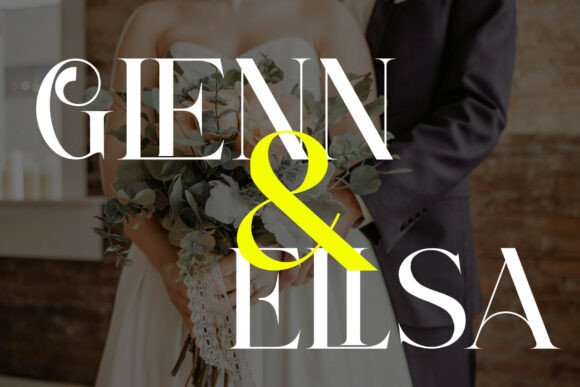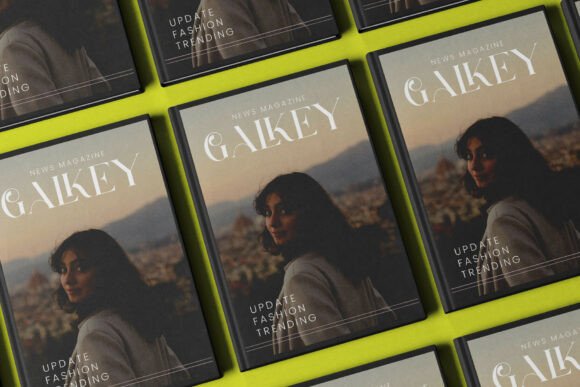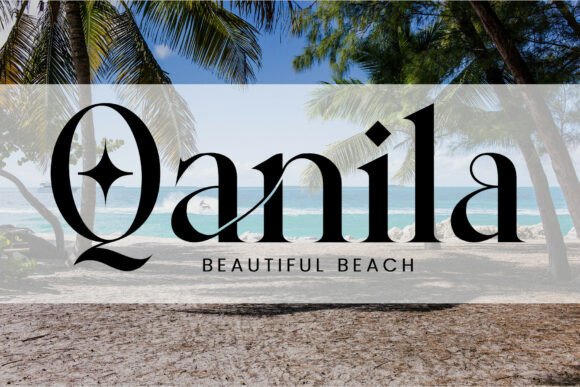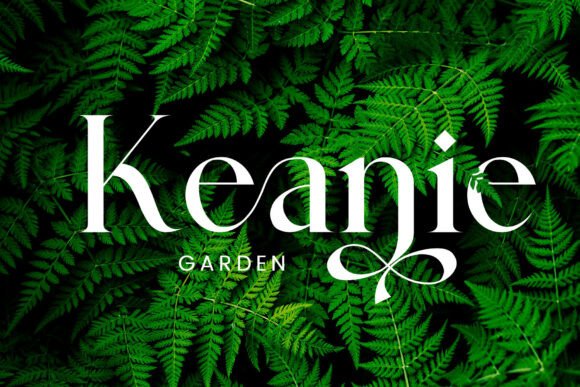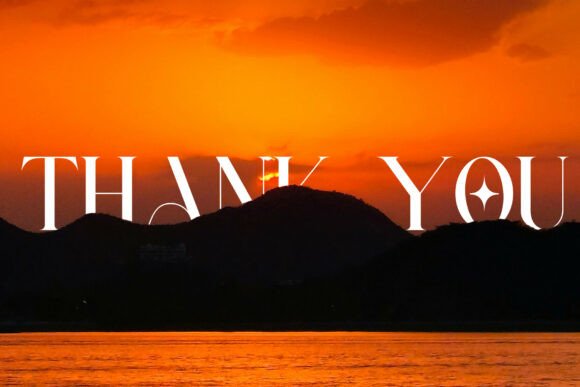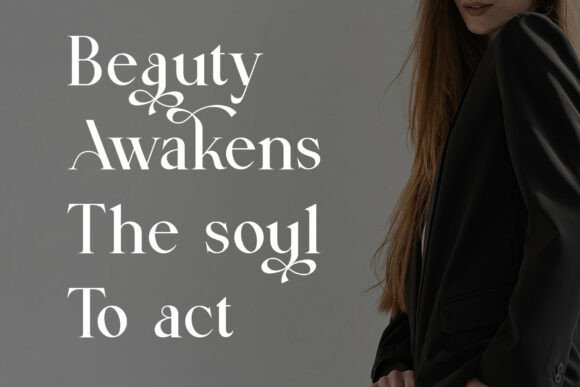
Elevate Your Design Aesthetic with the Dilea Font: A Masterpiece of Contemporary Luxury
In the world of high-end design, typography plays a crucial role in conveying sophistication, elegance, and exclusivity. For designers seeking to elevate their aesthetic to the pinnacle of refinement, the Dilea font is an unparalleled choice. This exquisite typeface is meticulously crafted to embody the essence of contemporary high-fashion and luxury editorial design, making it an indispensable asset for those working within the realms of luxury branding, jewelry, and high-end lifestyle products.
The Architecture of Elegance: A Closer Look at Dilea’s Design
The Dilea font is distinguished by its striking contrast, characterized by razor-thin hairlines that fluidly transition into bold, structural stems. This masterful balance of delicate and robust elements pays homage to the timeless elegance of Italian fashion houses, exuding an aura of authority and refined grace. Every character in the Dilea typeface is precision-balanced to ensure that whether it’s utilized for a single-letter monogram or a full-page headline, it consistently conveys a sense of poise and prestige.
Example of Dilea Font in use
An example of the Dilea font in use, showcasing its versatility and elegance in various design applications.
Versatility and Exclusivity: The Hallmarks of Dilea
The versatility of the Dilea typeface is one of its most compelling attributes. Whether you’re designing for luxury branding, crafting bespoke jewelry advertisements, or creating marketing materials for high-end lifestyle products, Dilea offers a level of sophistication that is unmatched. Its ability to communicate exclusivity and refinement makes it the perfect choice for brands that aspire to convey a sense of high-end quality and prestige.
Applications of Dilea: Where Elegance Meets Functionality
The applications of the Dilea font are vast and varied. Imagine the impact of Dilea embossed on heavy-stock paper for a boutique hotel’s greeting card, instantly elevating the brand’s image to one of luxury and refinement. In editorial design, Dilea shines as a headline font, commanding attention with its bold presence while maintaining an air of elegance. For luxury brands, using Dilea in their logo or marketing materials can significantly enhance their perceived value, positioning them as purveyors of high-end quality.
Why Dilea Stands Out in the World of Typography
In a sea of typefaces, Dilea stands out for several reasons:
• Unparalleled Contrast: The dramatic contrast between its thin hairlines and bold stems sets it apart, offering a level of visual interest that draws the viewer in.
• Elegance and Authority: Dilea strikes a perfect balance between elegance and authority, making it suitable for a wide range of luxury applications.
• Versatility: From monograms to full-page headlines, Dilea performs flawlessly across various design applications.
Conclusion: Elevate Your Designs with Dilea
In conclusion, the Dilea font represents the pinnacle of typographic sophistication, offering designers a tool to elevate their aesthetic to unprecedented heights of elegance and luxury. Its breathtaking contrast, balanced design, and versatile application make it an indispensable asset for anyone working in the luxury design sphere. By incorporating Dilea into your typographic arsenal, you’re not just choosing a font; you’re embracing a design philosophy that prioritizes beauty, exclusivity, and high-end quality.
Whether you’re crafting a brand identity, designing editorial content, or creating bespoke marketing materials, Dilea invites you to explore the upper echelons of design excellence. Experience the transformative power of the Dilea font and discover a world where typography transcends functionality to become an art form in its own right.